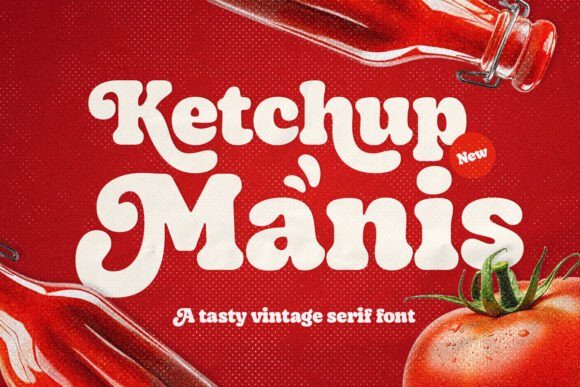
Ketchup Manis Font: A Tasty Vintage Serif Typeface
Ketchup Manis is a delightful font that embodies the warmth and comfort of classic design. This vintage serif typeface is packed with bold flavors and juicy curves, making it perfect for designs that require a touch of nostalgia and playfulness. In this article, we’ll dive into the world of Ketchup Manis, exploring its unique features, and how it can elevate your designs to new heights.
Unique Features of Ketchup Manis
Ketchup Manis is a masterful blend of 70s-inspired shapes, playful swashes, and soft-rounded terminals. This distinctive combination gives the font its quirky soul, reminiscent of old-school grocery labels and fast food typography. The chunky weight and friendly character of Ketchup Manis make it perfect for headlines that demand attention and logos that stick in memory.
- 70s-inspired shapes: Ketchup Manis draws inspiration from the iconic designs of the 1970s, with shapes that evoke a sense of nostalgia and retro charm.
- Playful swashes: The font features playful swashes that add a touch of whimsy and fun to your designs.
- Soft-rounded terminals: The soft-rounded terminals of Ketchup Manis give the font its signature warmth and approachability.
Design Applications for Ketchup Manis
Ketchup Manis is a versatile font that can be used in a variety of design applications. Its unique character makes it perfect for:
- Quirky restaurant branding: Ketchup Manis is ideal for restaurants that want to evoke a sense of nostalgia and playfulness.
- Playful packaging: The font’s bold flavors and juicy curves make it perfect for packaging designs that require a touch of whimsy.
- Fun editorial spreads: Ketchup Manis can add a delicious, approachable tone to editorial spreads, making it perfect for food blogs, magazines, and more.
Typography Tips for Using Ketchup Manis
To get the most out of Ketchup Manis, here are some typography tips to keep in mind:
- Pair with bold colors: Ketchup Manis pairs perfectly with bold colors that evoke a sense of warmth and comfort.
- Combine with warm textures: Adding warm textures to your design can enhance the vintage feel of Ketchup Manis.
- Experiment with swashes: Don’t be afraid to experiment with the playful swashes of Ketchup Manis to add a touch of whimsy to your designs.
Ketchup Manis Font Specifications
| Font Name | Ketchup Manis |
|---|---|
| Font Style | Serif |
| Font Weight | Chunky |